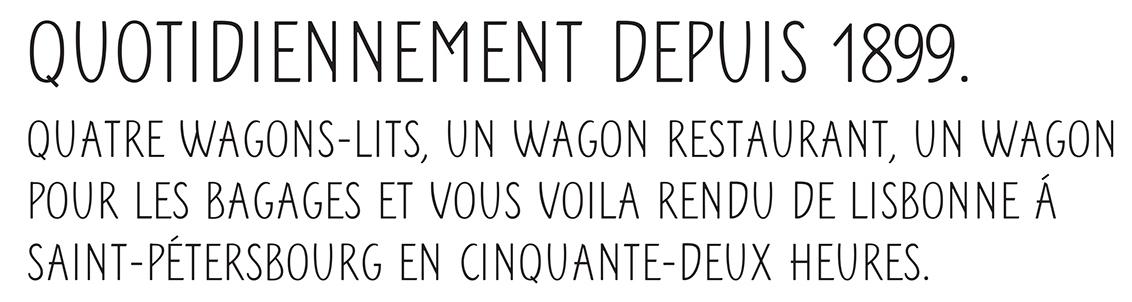
Adèle Gallé
During her studies at Ecole Estienne in Paris and La Cambre in Brussels, Paris-based Adèle Gallé designed the informal poster typeface Nord Express (2016) and the connected script typeface Sanour (2016). Behance link. |